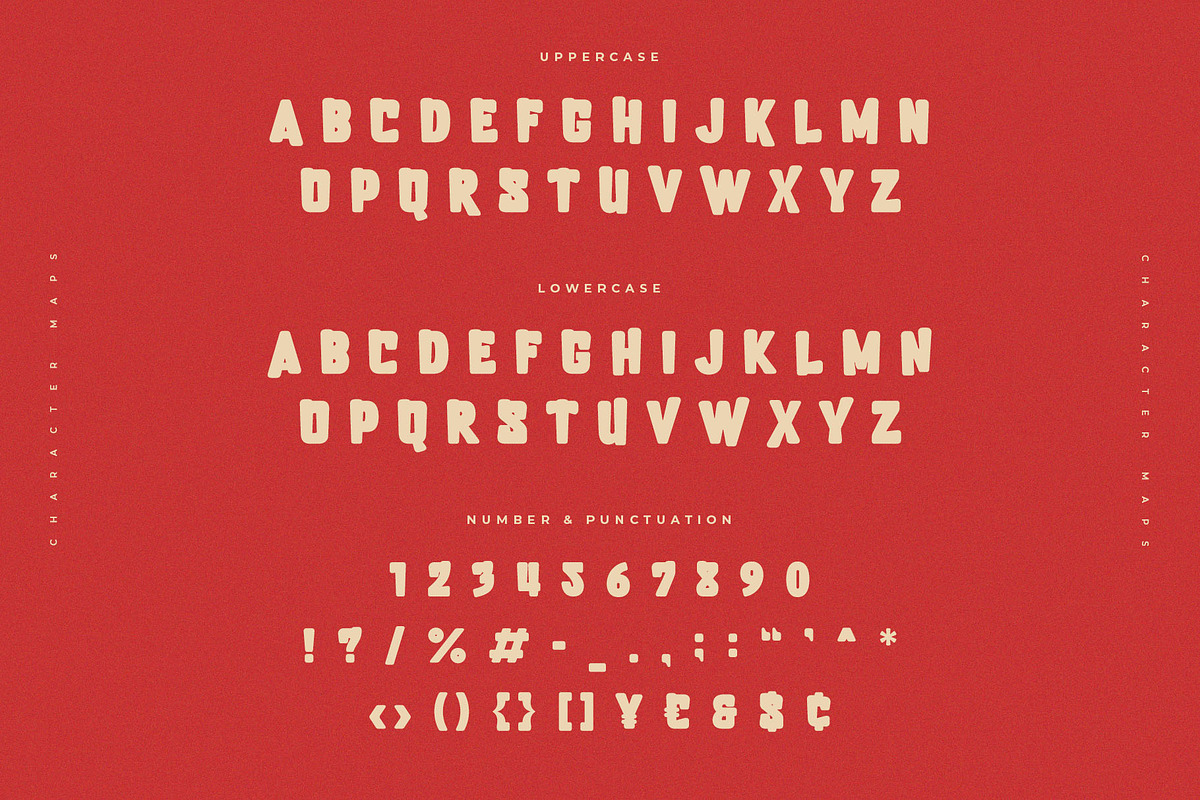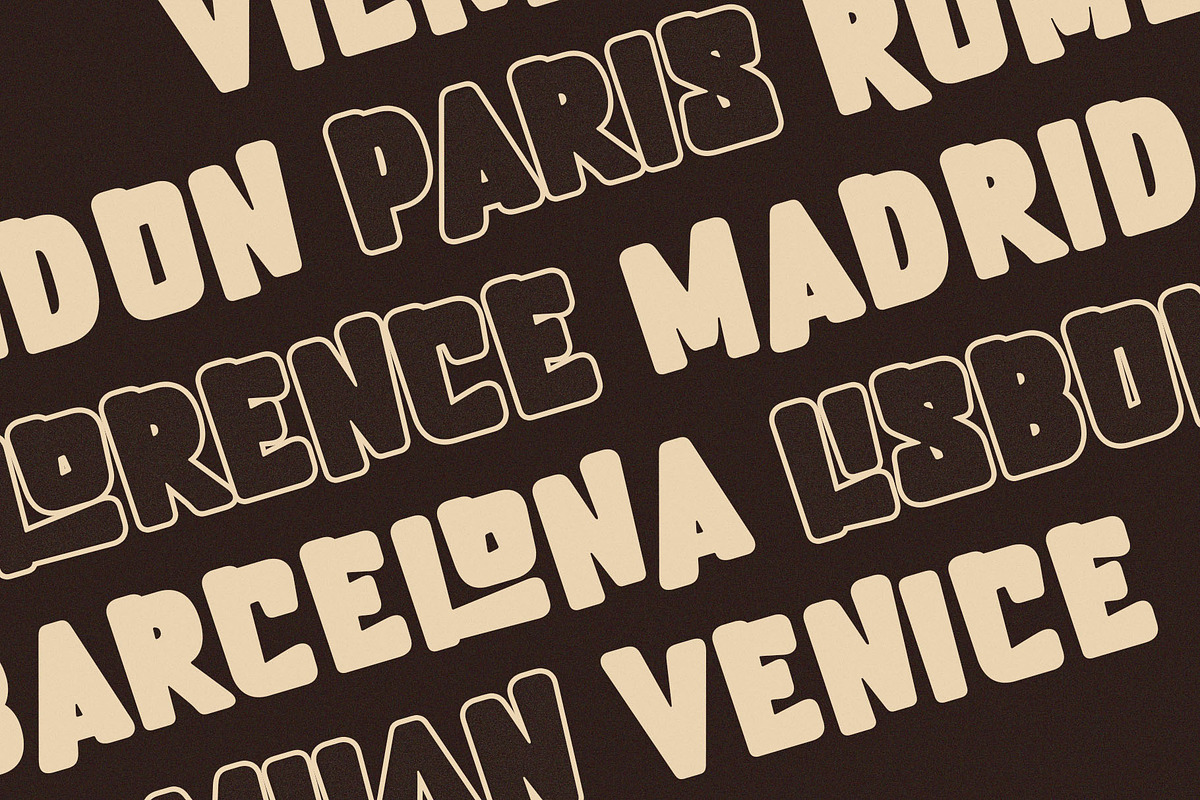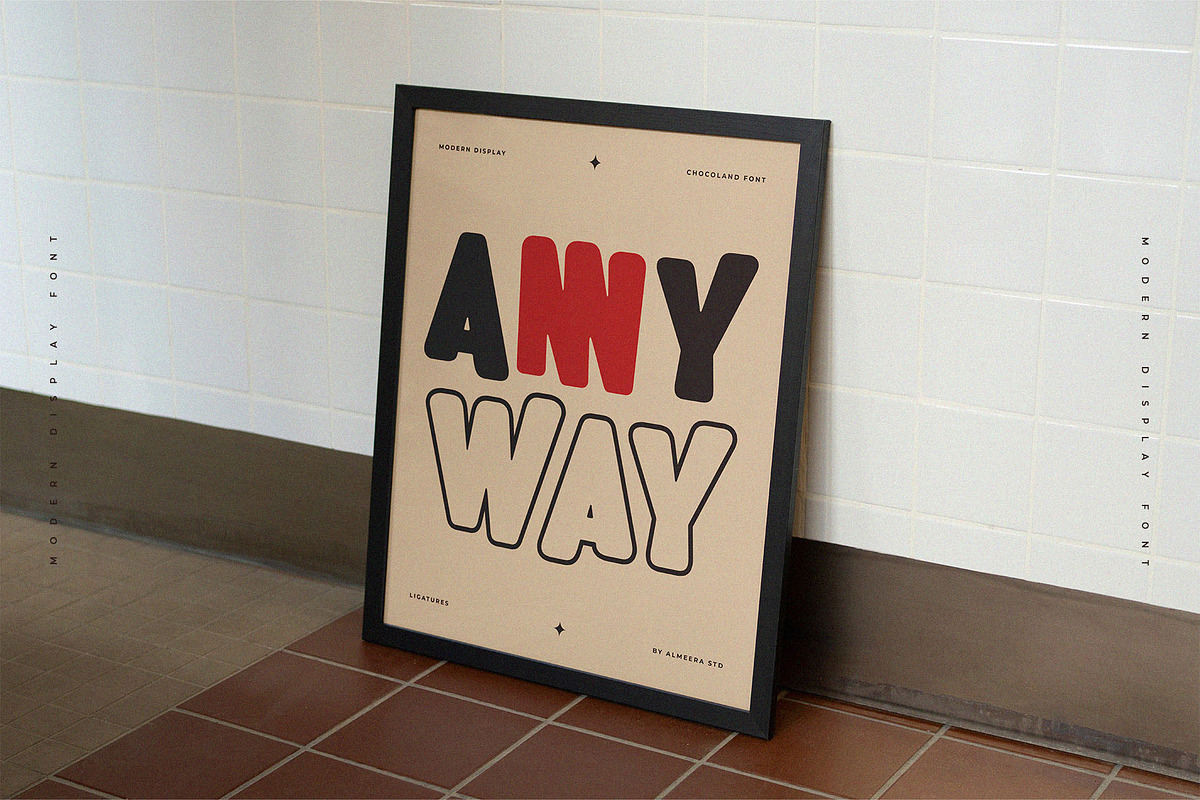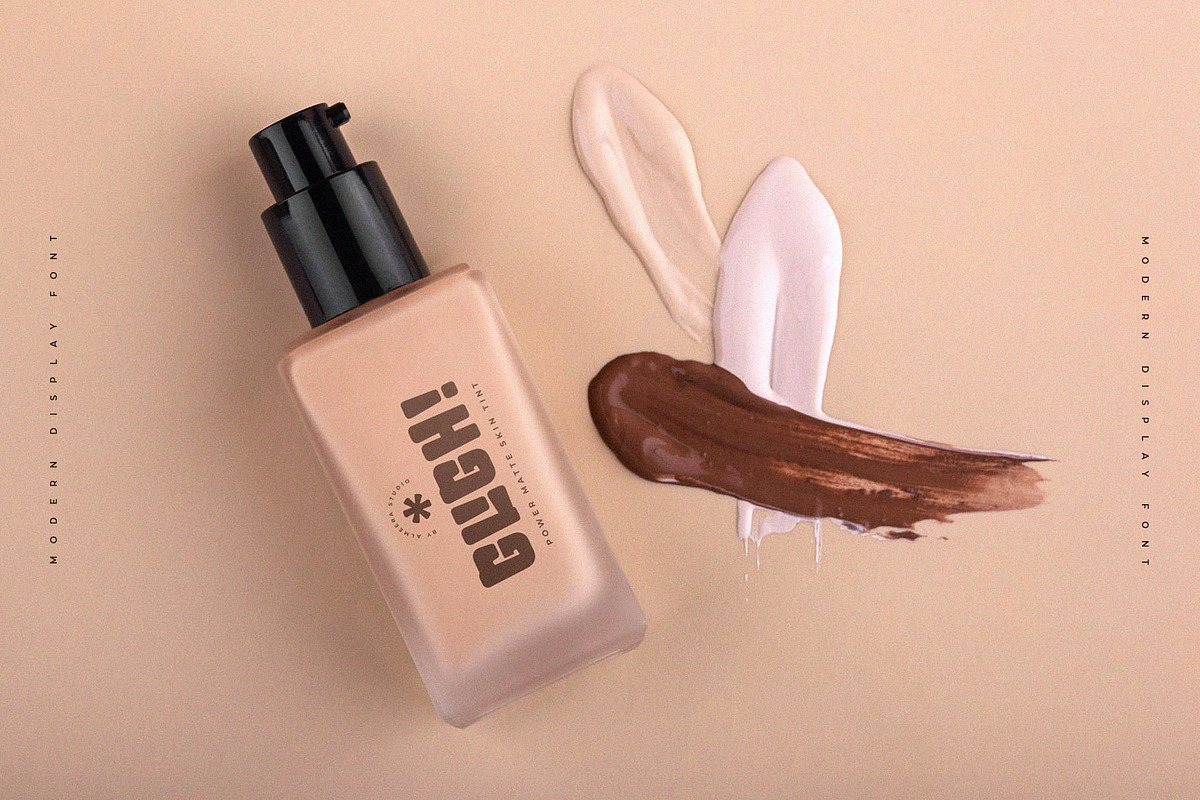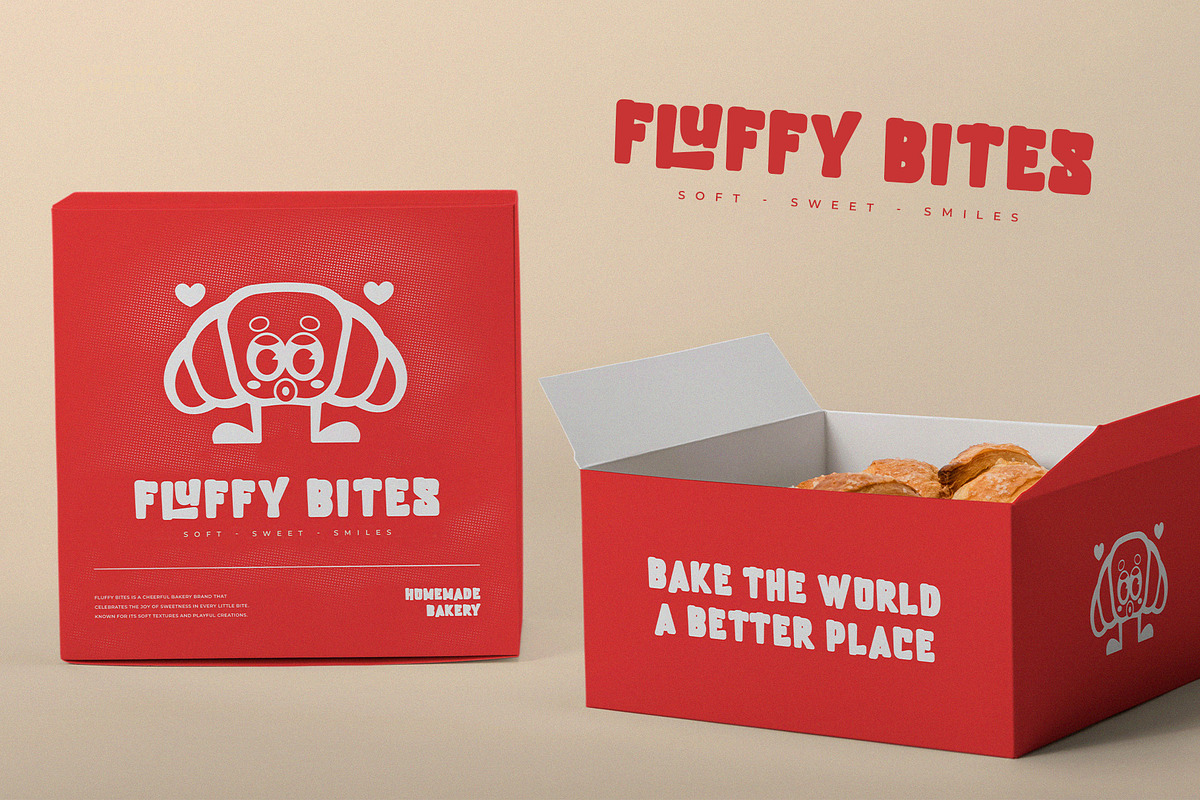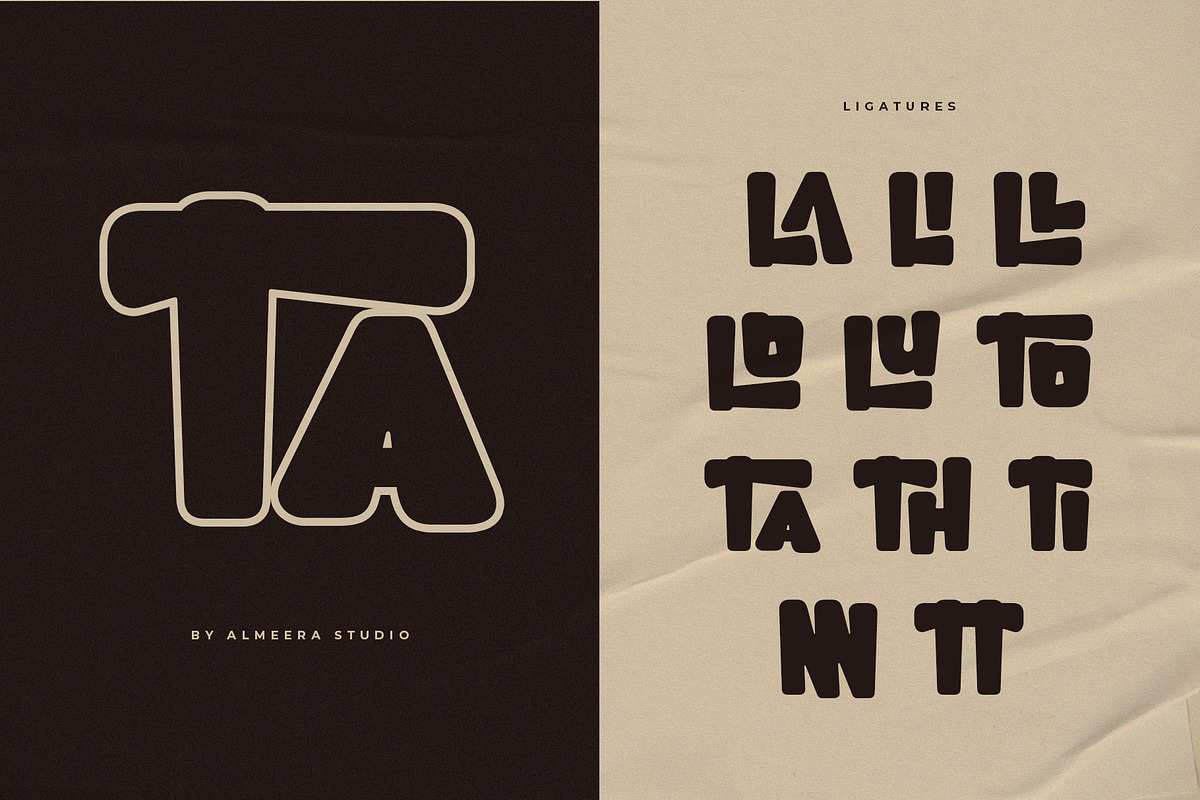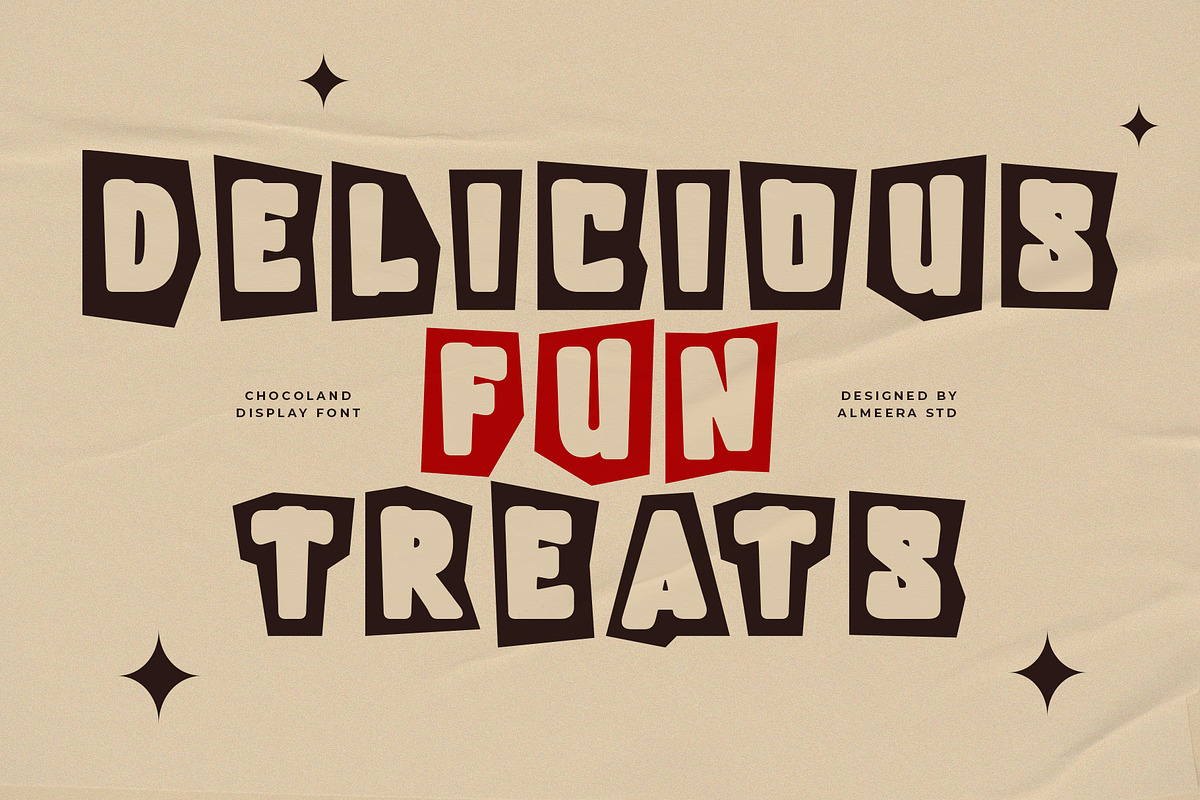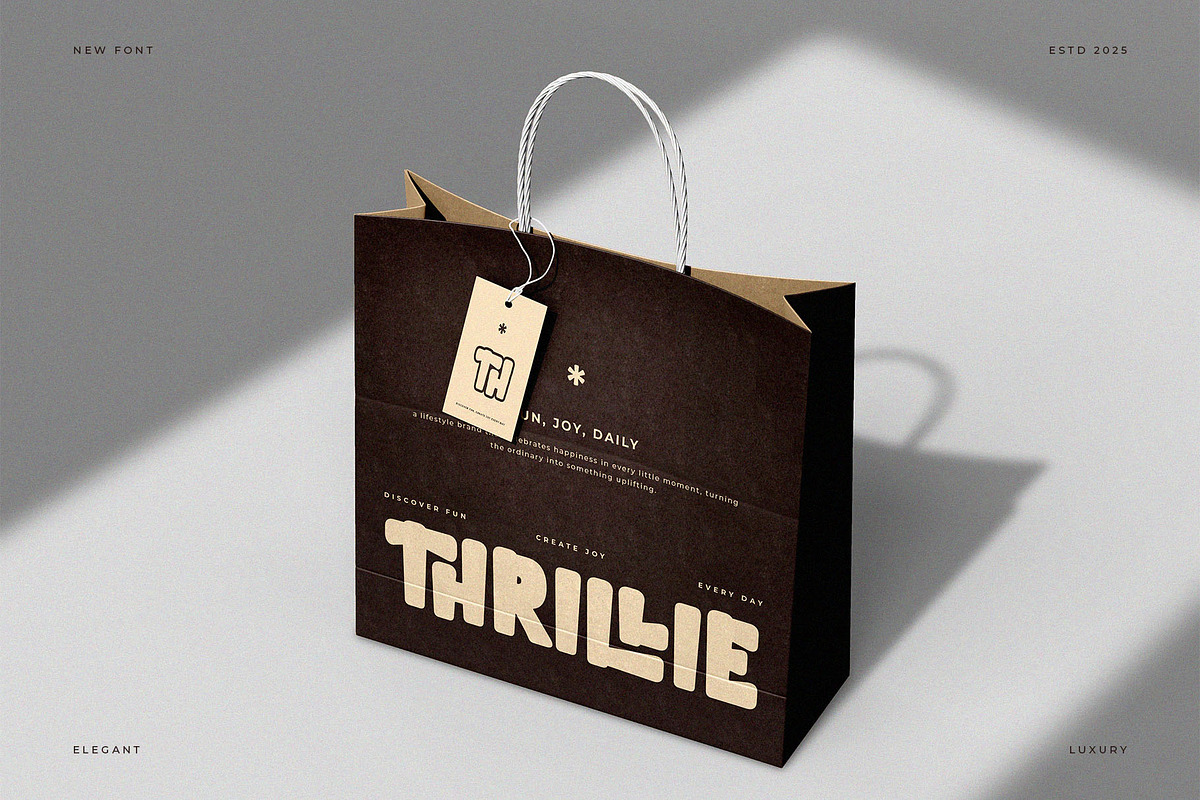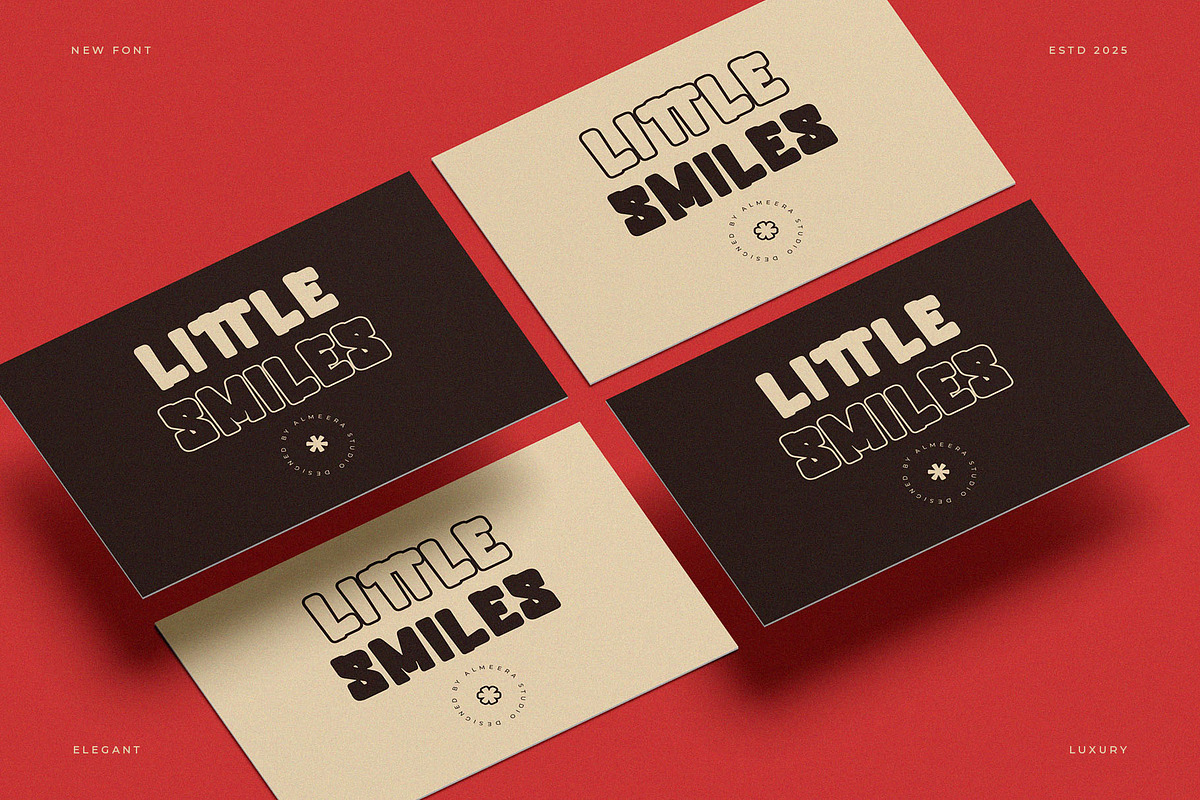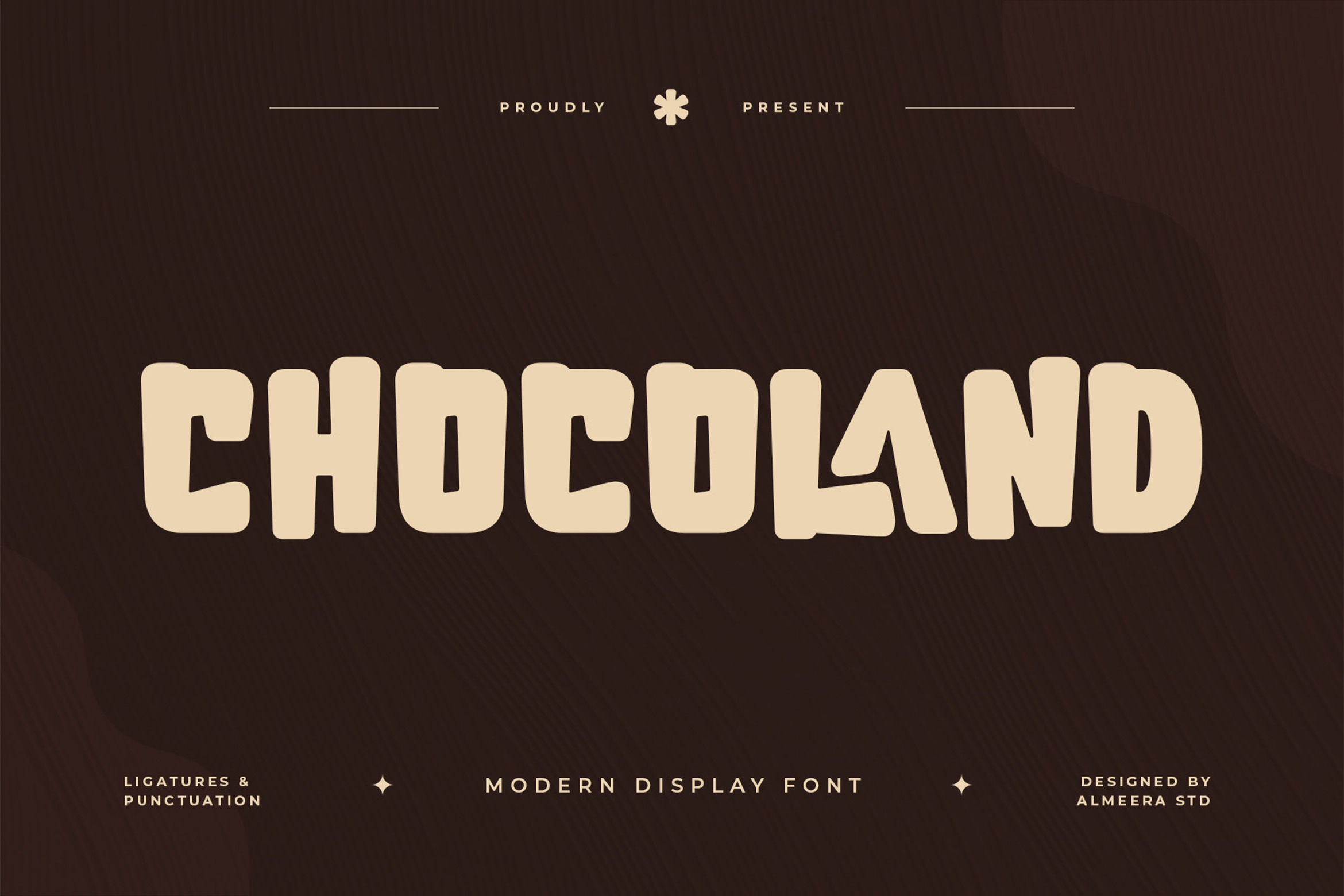
Chocoland – Modern Display Font
Chocoland is a deliciously modern display font inspired by bold chocolate packaging and playful branding. With chunky forms and soft edges, it adds a sweet yet confident touch to any design. Perfect for food packaging, posters, logos, and eye-catching headlines, Chocoland brings both fun and modern appeal to your creative projects.